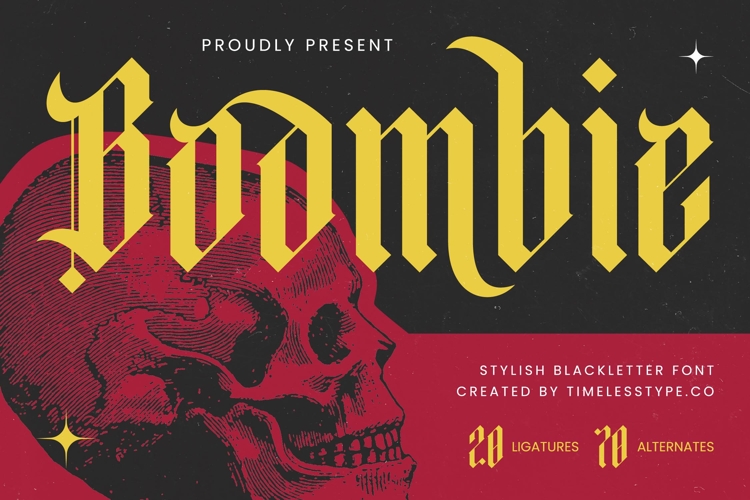
Boombie - Stylish Blackletter Font
Unleash a truly distinctive aesthetic with Font Boombie - Stylish Blackletter Font Blackletter, a typeface that masterfully fuses historical elegance with contemporary design sensibility. This powerful Blackletter rendition commands attention with its high-contrast strokes and intricate yet legible letterforms, ensuring your message leaves an unforgettable visual mark. It’s engineered for designers seeking to convey both gravitas and modern sophistication in their work.
Elevate your creative projects to new heights with the inherent versatility of Font Boombie - Stylish Blackletter Font Blackletter. Perfect for luxury branding, premium packaging, compelling editorial design, impactful event posters, or striking apparel, this font injects an authentic character and an undeniable edge. Its bold presence makes it an exceptional choice for headlines, logos, and any application demanding strong visual identity.
Discover unparalleled customization and expressive potential woven into every character of Font Boombie - Stylish Blackletter Font Blackletter. Featuring a rich set of ligatures and numerous alternates, this font empowers designers to craft truly unique typography that stands out. Embrace the design flexibility to create custom logotypes and striking headlines, ensuring your projects consistently reflect a bespoke, high-quality finish.